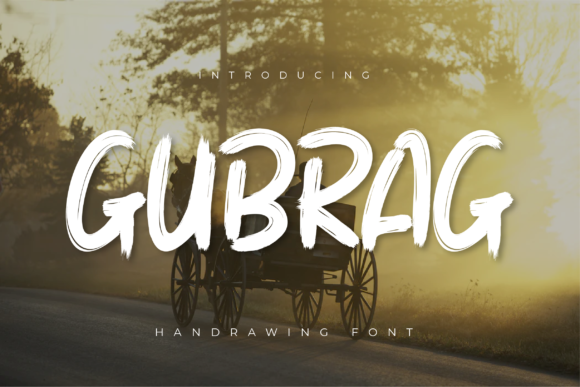
Adding a Splash of Personality to Your Designs
Have you ever been working on a project, and suddenly, you just can’t seem to find the right font to match your creative vision? You try out a few different options, but nothing seems to pop. That’s when the magic happens – you stumble upon the perfect font that takes your design to the next level.
Meet the Gubrag Font, a bold and chunky lettered display that’s sure to make your designs stand out from the crowd. This beautiful font was created with the help of a trusty brush pen, giving it a unique, hand-drawn feel that’s perfect for adding a touch of personality to your work.
As a designer, you know how valuable it is to have a font that can really make your ideas shine. That’s where the Gubrag Font comes in – its bold, chunky letters are sure to add a splash of personality to any design, making it a valuable addition to your creative toolkit.
Gubrag Font Key Features
- Unique Characteristics: Gubrag Font features a unique, handwritten style with intricate details and flourishes, making it an ideal choice for creative and artistic projects.
Gubrag Font Review
I recently had the chance to work with the Gubrag Font, and I must say it’s been an interesting experience. Here are my thoughts:
- ✨ Unique design: The Gubrag Font has a distinctive and quirky look that’s perfect for adding some personality to your designs.
- ✨ Versatile: I found it to be suitable for a wide range of projects, from logos to body text.
- ✨ Easy to read: Despite its unconventional design, the font is surprisingly legible, even at smaller font sizes.
- ⚠️ Limited font sizes: I noticed that the font doesn’t look its best when enlarged or shrunk beyond a certain range.
- ⚠️ Limited language support: Gubrag Font seems to be optimized for Latin-based languages, which may limit its usability for projects that require other languages.
Overall, I think the Gubrag Font is a solid choice for designers who want to add some flair to their work. While it has some limitations, its unique design and versatility make it a great option for the right project. Just be mindful of its limitations and adjust your expectations accordingly.
To get the most out of Gubrag font, use it for:
- Creating unique and eye-catching headlines.
- Designing modern and minimalist branding materials.
- Adding a touch of whimsy to your digital content.
Remember to adjust font sizes and styles to balance with your overall design.